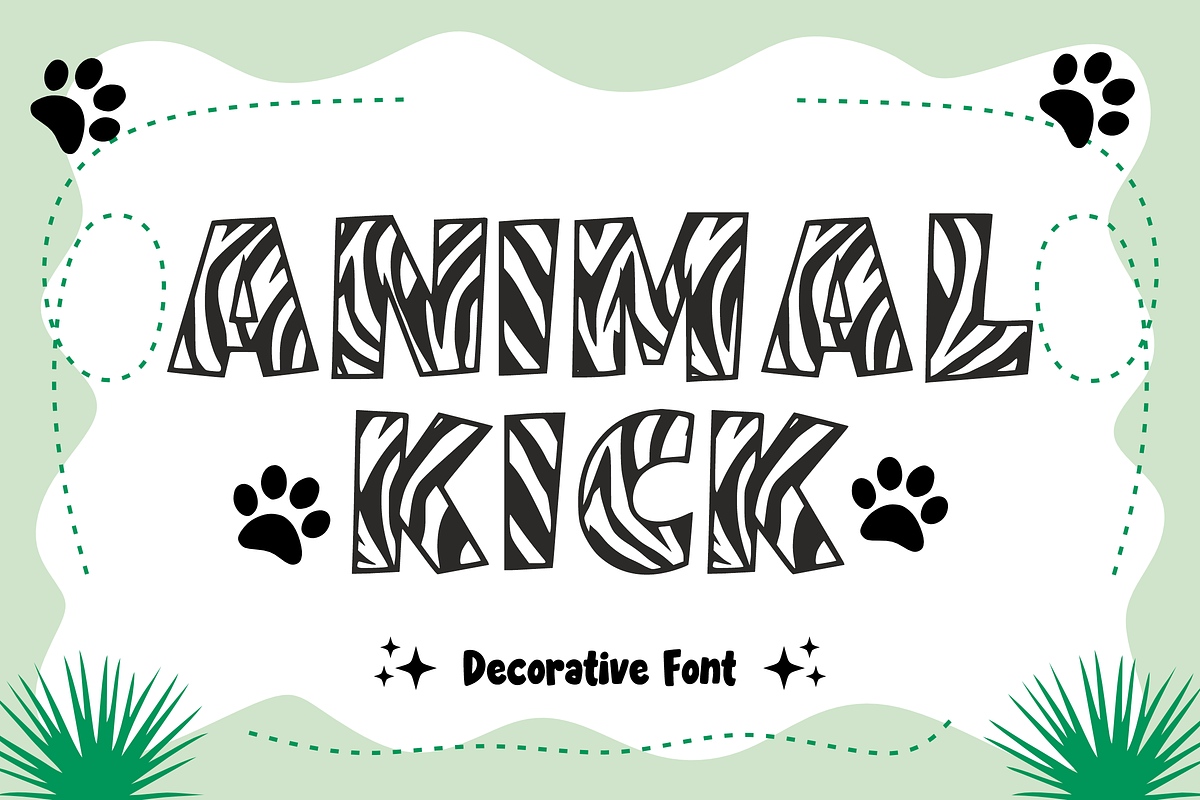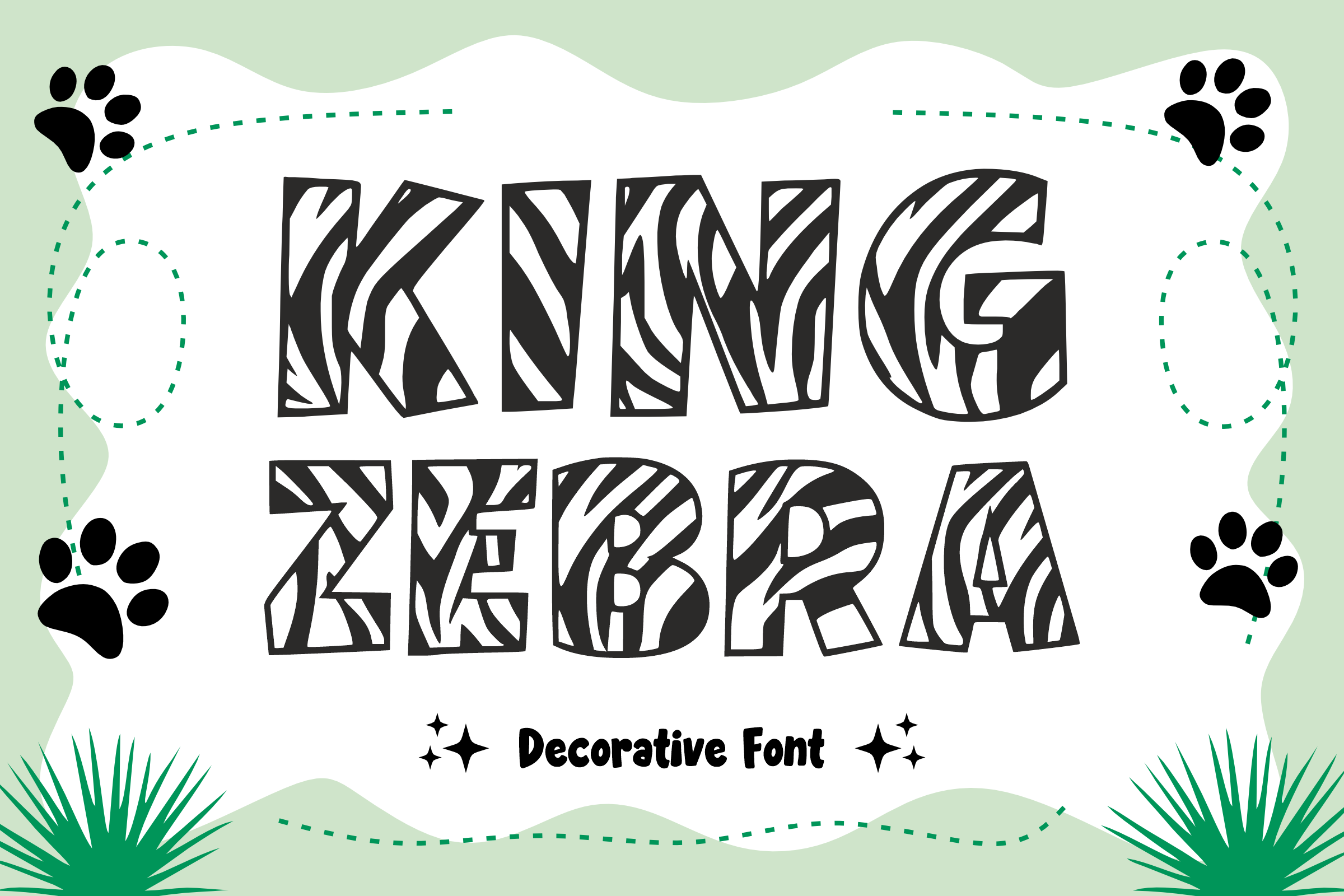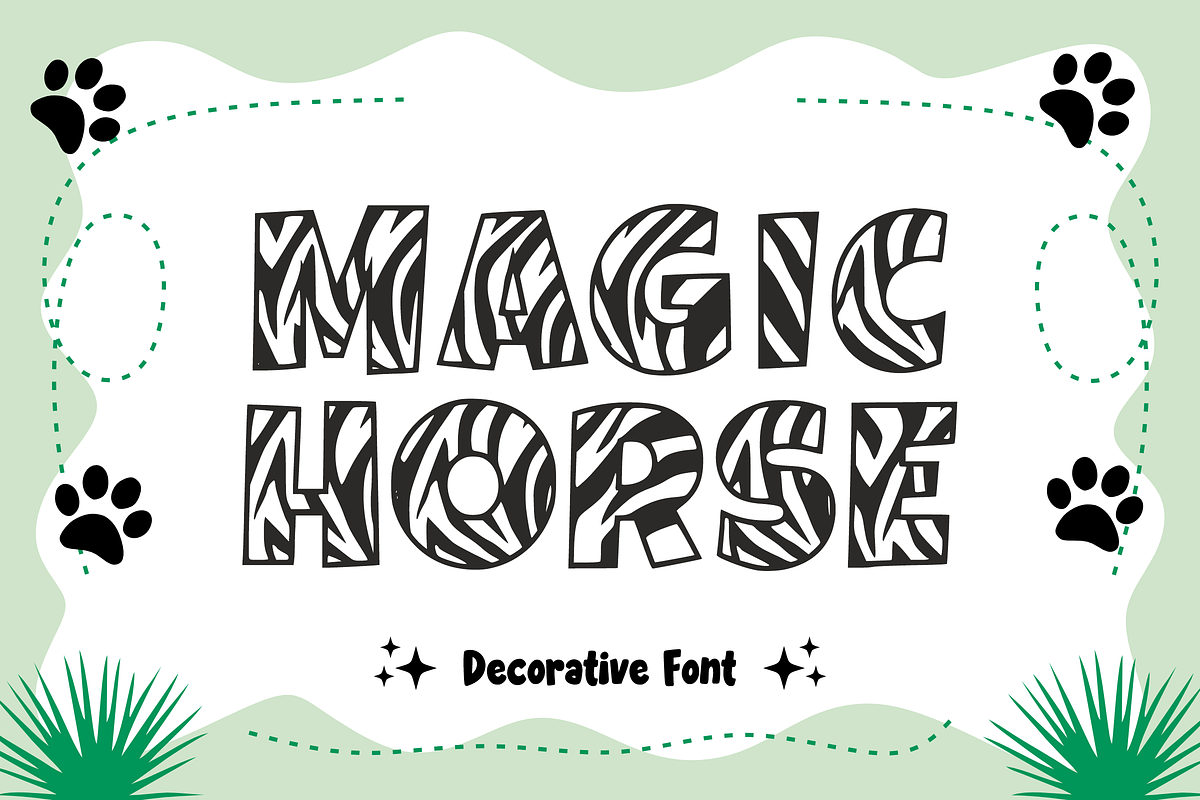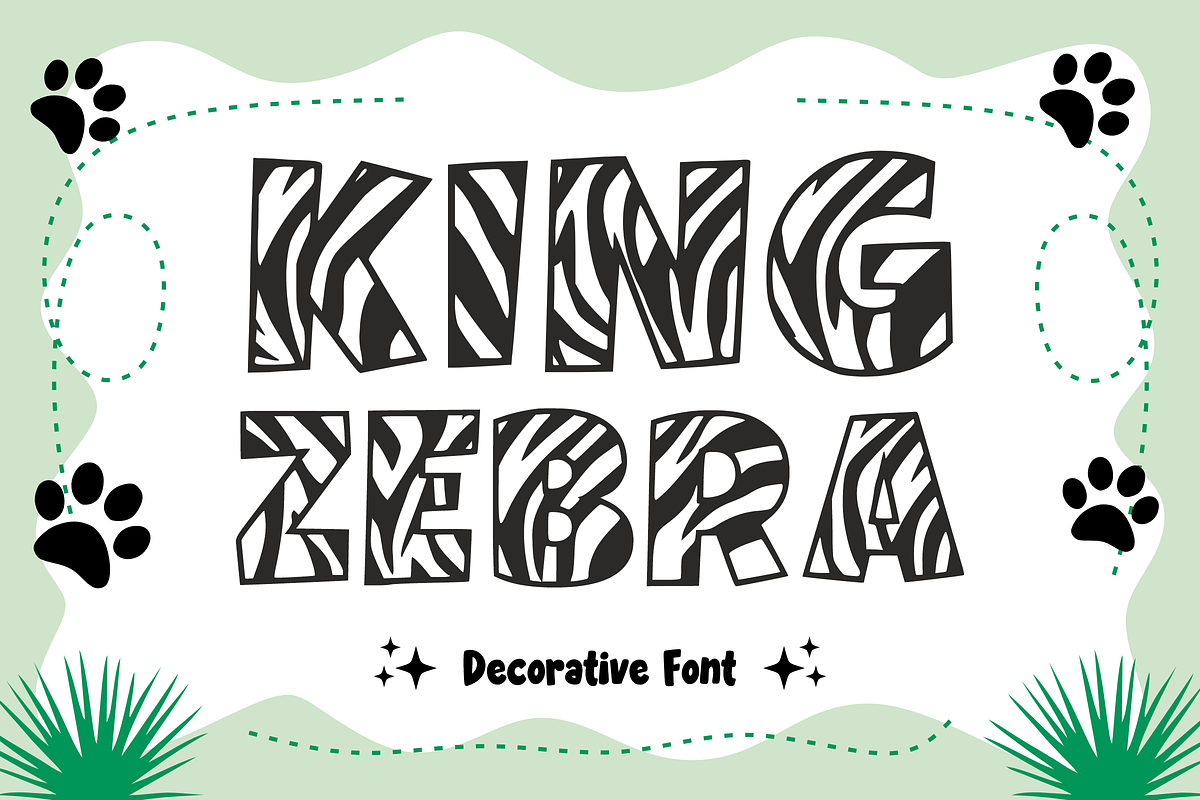
King Zebra - Decorative Font
🦓 King Zebra - Wild & Playful Pattern Font 🌿 Take a walk on the wild side with King Zebra! This unique display font features bold, chunky characters decorated with stylish zebra-inspired stripes. Designed with a fun "sticker-style" outline, it perfectly blends animal kingdom vibes with a playful, modern aesthetic.
Whether you're creating a safari-themed birthday party or a standout brand for kids, King Zebra is the "king" of the jungle when it comes to eye-catching headlines!
✨ Key Features: 🦓 Patterned Uppercase: Bold letters filled with fun, hand-drawn zebra stripes.
🔢 Numbers 0-9: Matching patterned numerals for dates and ages.
🌿 Simple Symbols: Essential punctuation to complete your wild designs.
✂️ Clean Outlines: Smooth edges perfect for stickers, vinyl cutting, and printing.
🎨 Perfect For: 🦁 Safari Themes: Zoo posters, jungle-themed party invites, and nursery decor.
🧸 Kids Branding: Toy packaging, children's apparel, and logo design.
📚 Education: Fun school projects, animal flashcards, and classroom banners.
👕 Merchandise: Trendy animal print t-shirts, stickers, and tote bags.
📱 Social Media: Unique YouTube thumbnails and adventurous travel quotes.